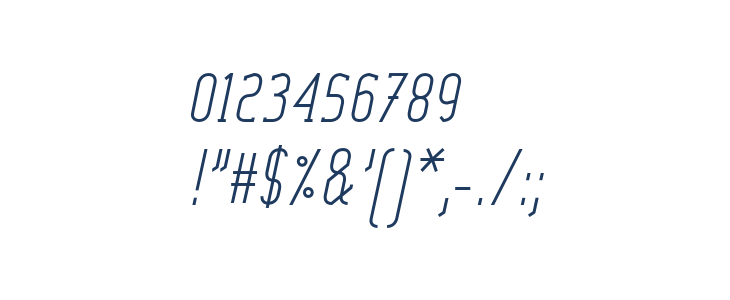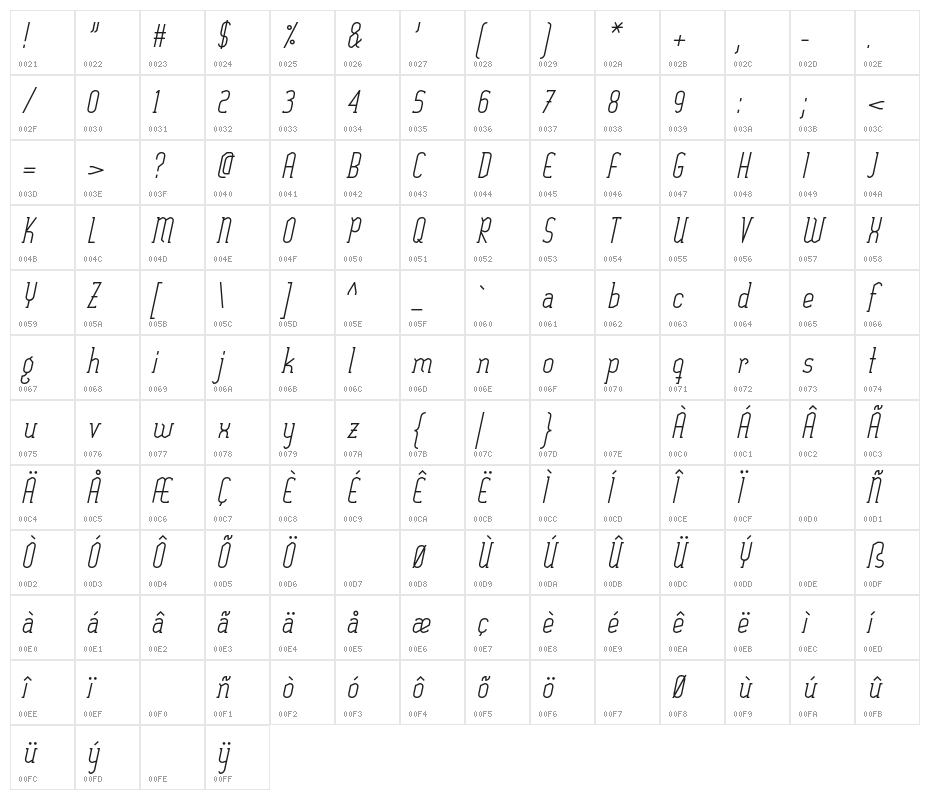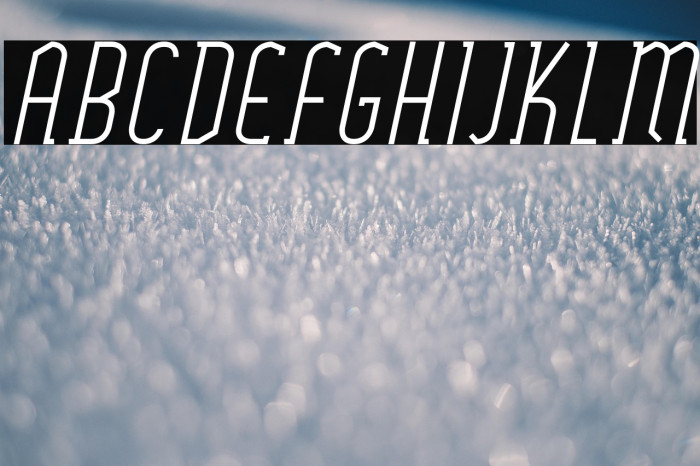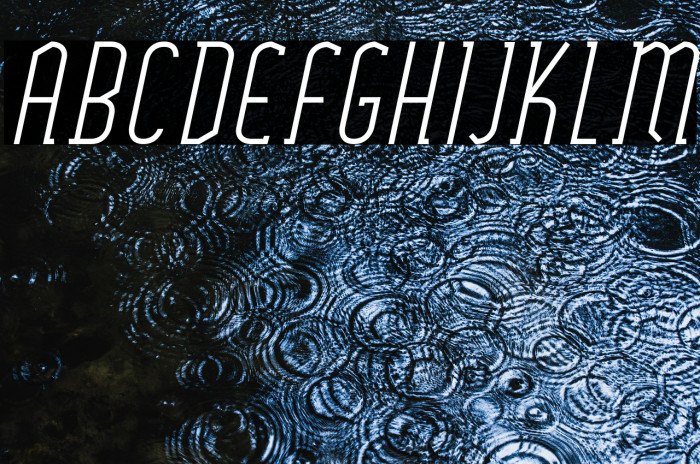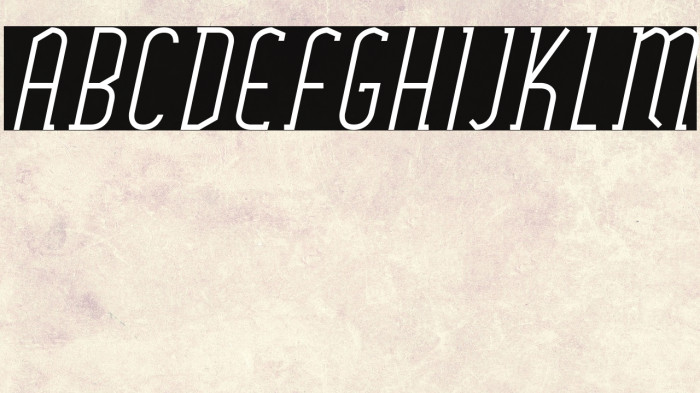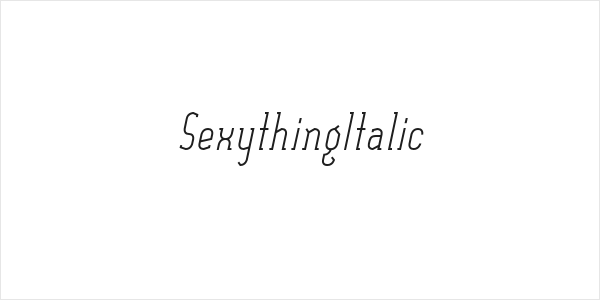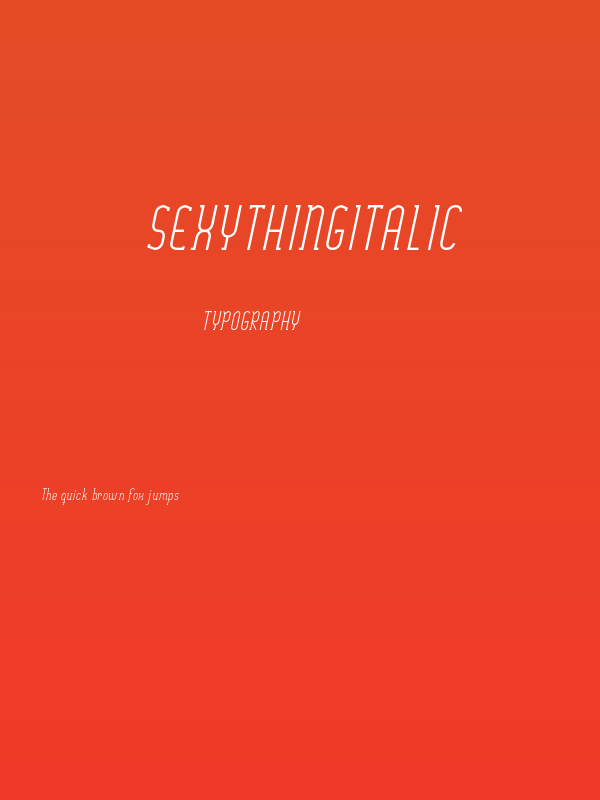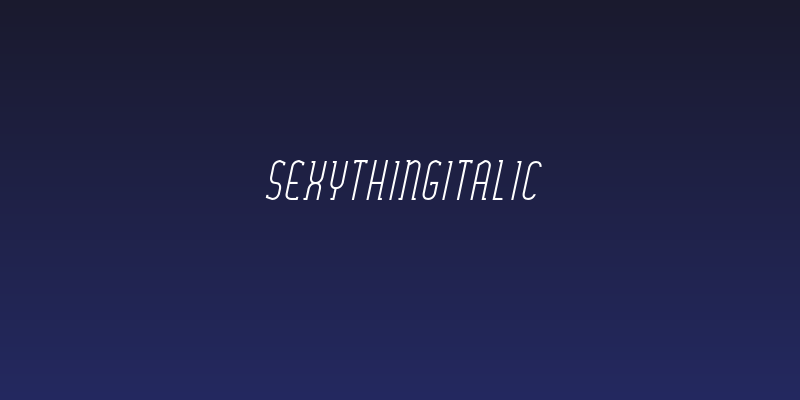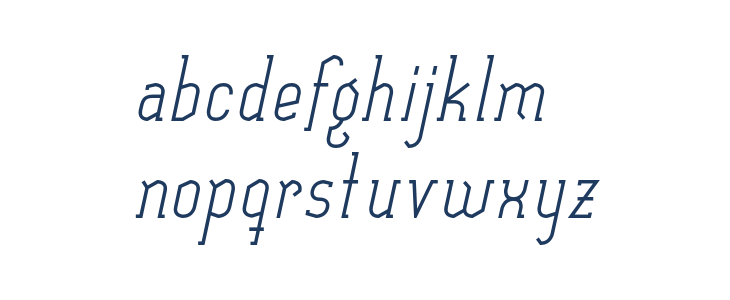
SexythingItalic Font
SexythingItalic Description
This font features a sleek, italicized style with elongated, narrow characters that convey a sense of elegance and modernity. The uppercase letters are tall and slightly condensed, while the lowercase letters maintain a consistent slant, enhancing the dynamic flow of the text. The numerals are uniform in height, aligning well with the uppercase letters, and the special characters are distinct, maintaining the overall aesthetic. The font's design is characterized by its clean lines and minimal contrast in stroke thickness, making it versatile for various applications.
| Use Case | Headlines, Logos, Editorials |
| Proposed Projects | Ideal for fashion branding, modern editorial layouts, and stylish product packaging. |